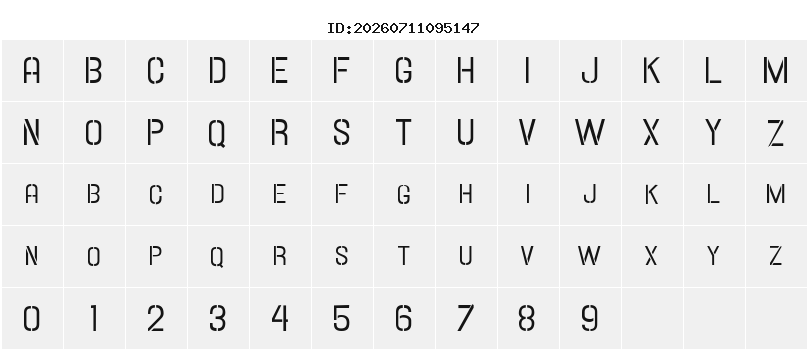
• Font Name: Hallandale Stencil SC JL
• Full Font Name: Hallandale Stencil SC JL
• Designer: Jeffrey N. Levine
• Description: "Hallendale Stencil Small Caps JL".
About Hallandale Stencil SC JL.ttf
Hallandale Stencil SC JL.ttf is a modern, elegant sans-serif font designed for ultimate readability and visual harmony. Perfect for branding, headlines, web design, and print materials.